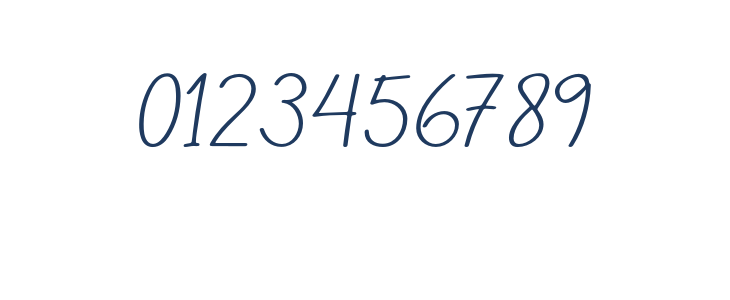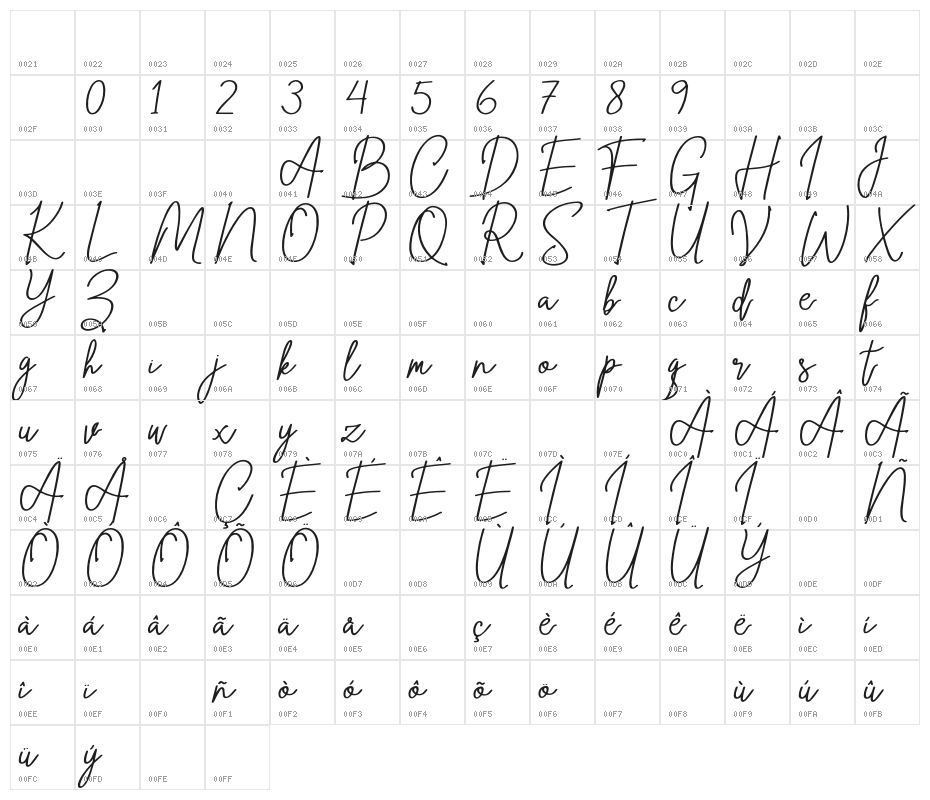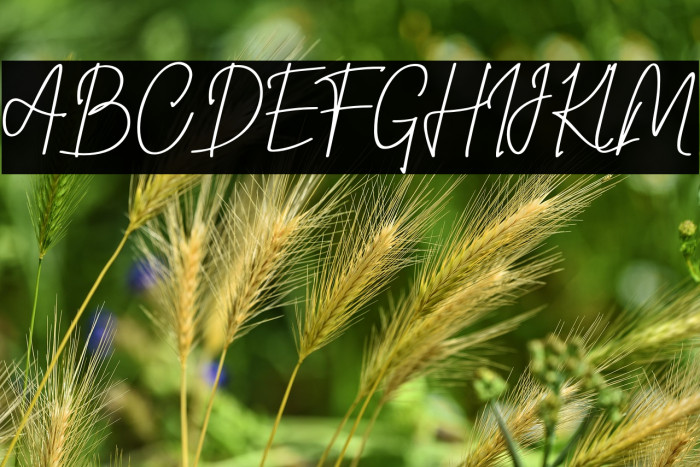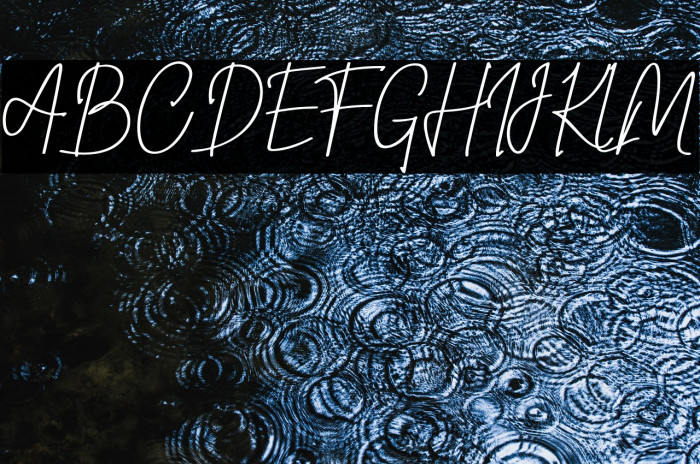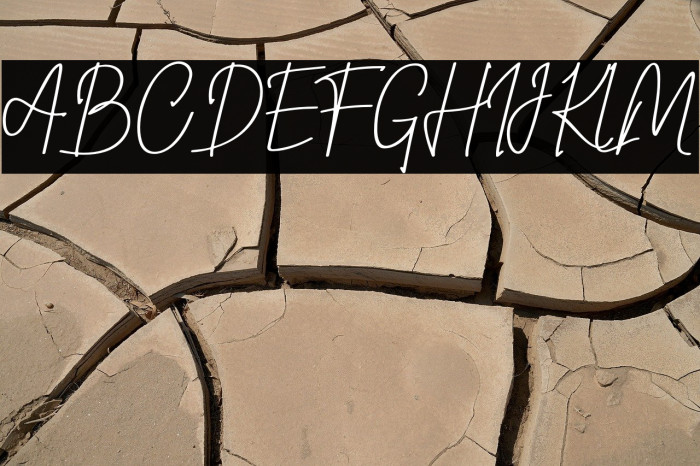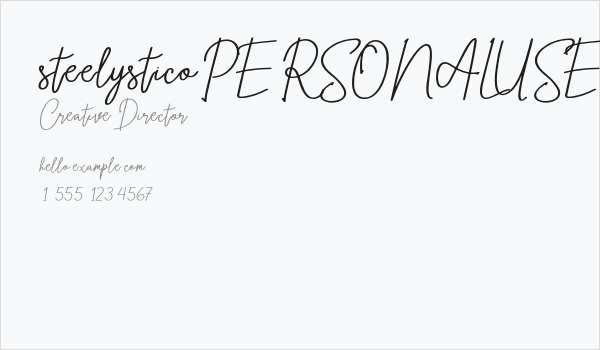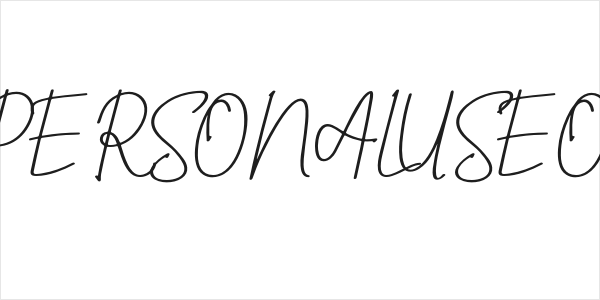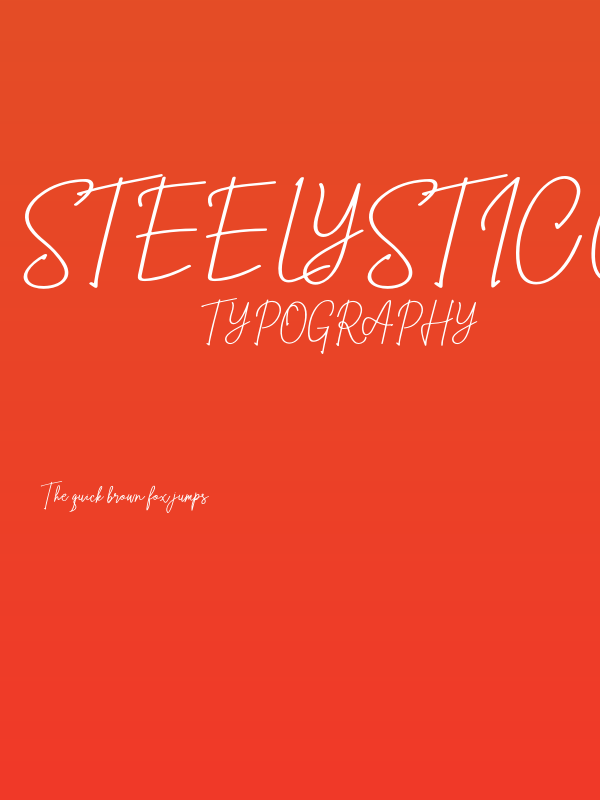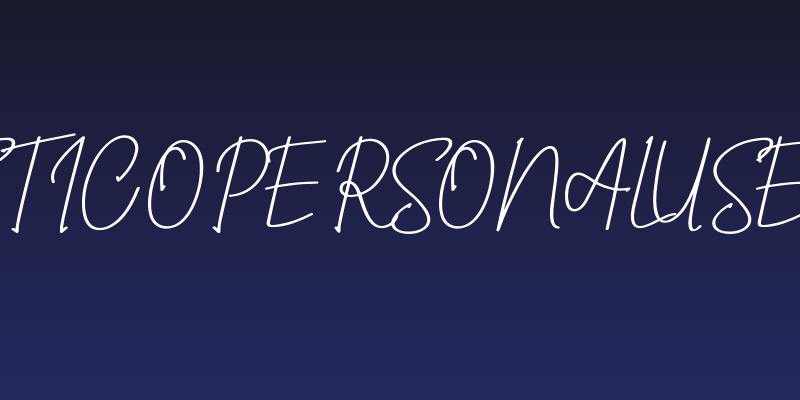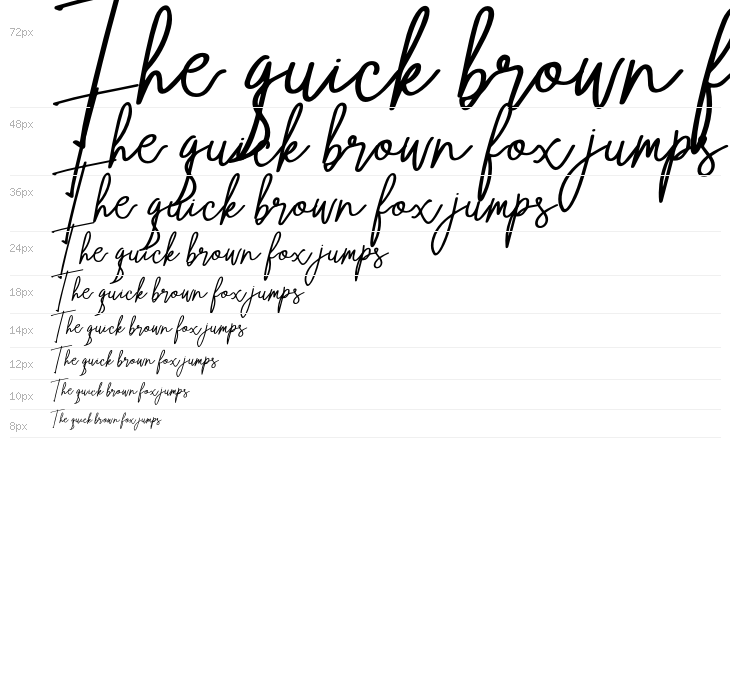
steelysticoPERSONALUSEONLY-Rg Font
steelysticoPERSONALUSEONLY-Rg Description
This font features a dynamic and flowing script style, characterized by its elegant and smooth cursive letters. The uppercase letters are tall and slender, with a slight slant that adds a sense of movement and grace. The lowercase letters are more rounded and connected, creating a harmonious and fluid appearance. The numerals maintain the same cursive style, ensuring consistency across all characters. The special characters blend seamlessly with the rest of the font, making it versatile for various uses. Its overall aesthetic is both modern and classic, suitable for projects that require a touch of sophistication and elegance.
| Proposed Projects | Ideal for wedding invitations, branding, logo design, and elegant stationery. |